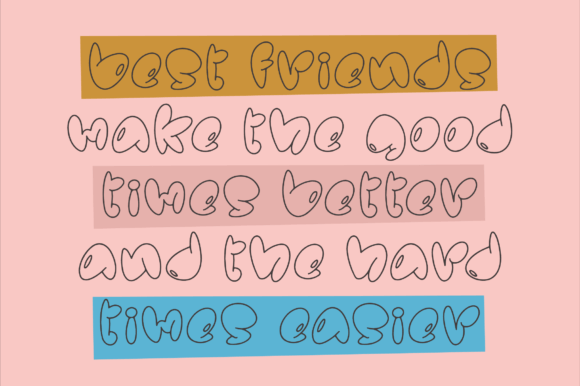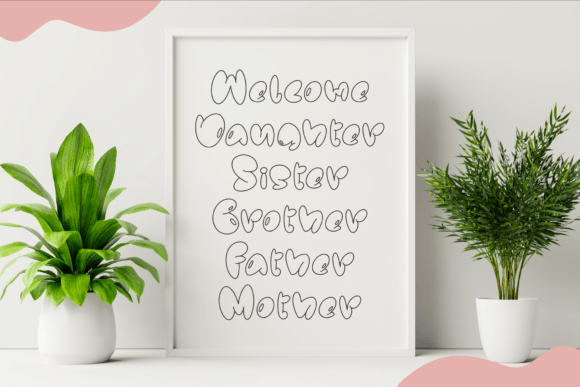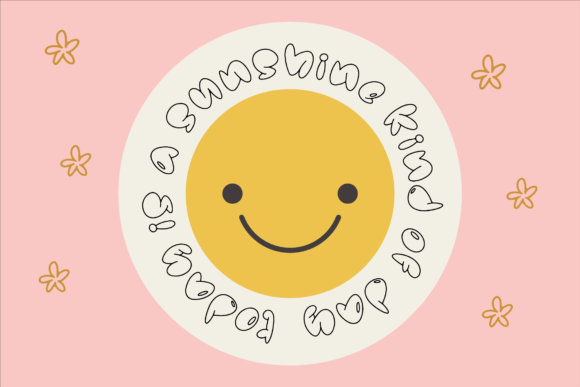
Introduction to Humble Candy Font
Have you ever stared at a blank canvas, searching for the perfect font to bring your creative vision to life? I know I have. Sometimes it’s the smallest details that can make all the difference in a design. For me, that moment came when I stumbled upon the Humble Candy Font. Its retro bubble charm instantly sparked an idea for a new project, and I knew I had to dive in.
As a designer, you’re always on the lookout for that special something to elevate your work. Humble Candy Font is just that – a high-quality, free download that adds a touch of whimsy to any project. With its transparent background, it’s perfect for layering over other design elements or using as a standalone feature. Whether you’re working on a logo, branding, or product packaging, this font is sure to bring a smile to your face and a dash of creativity to your design.
Key Features of Humble Candy Font
- Unique, hand-drawn design with a whimsical touch, perfect for creative projects.
- Designed to add a touch of personality to any design project, from digital to print media.
- Includes a comprehensive character set, including uppercase and lowercase letters, numbers, and punctuation marks.
Honest Review: Humble Candy Font
I recently had the chance to work with the Humble Candy Font for a creative project, and I must say, it was a great experience. This free download font is a great addition to any designer’s toolkit, offering a high quality and unique aesthetic that’s sure to elevate your designs.
Here are some of the things that work well with the Humble Candy Font: ✨
- Its transparent background makes it easy to customize and combine with other design elements.
- It’s a great choice for creative projects that require a playful and whimsical touch.
- The font’s unique design elements, such as the hand-drawn feel and subtle imperfections, add a touch of personality to any design.
- The font may not be suitable for formal or professional projects, due to its playful and casual nature.
Overall, I’m really impressed with the Humble Candy Font. It’s a great resource for designers looking to add a touch of creativity and whimsy to their projects. With its high quality design and transparent background, it’s a must-have for any design enthusiast.
To get the most out of the Humble Candy Font, use it in creative projects such as food blogs, dessert labels, or candy packaging designs. You can also use the font to create eye-catching social media graphics or promotional materials. Remember to experiment with different font sizes and styles to find the perfect combination for your design.